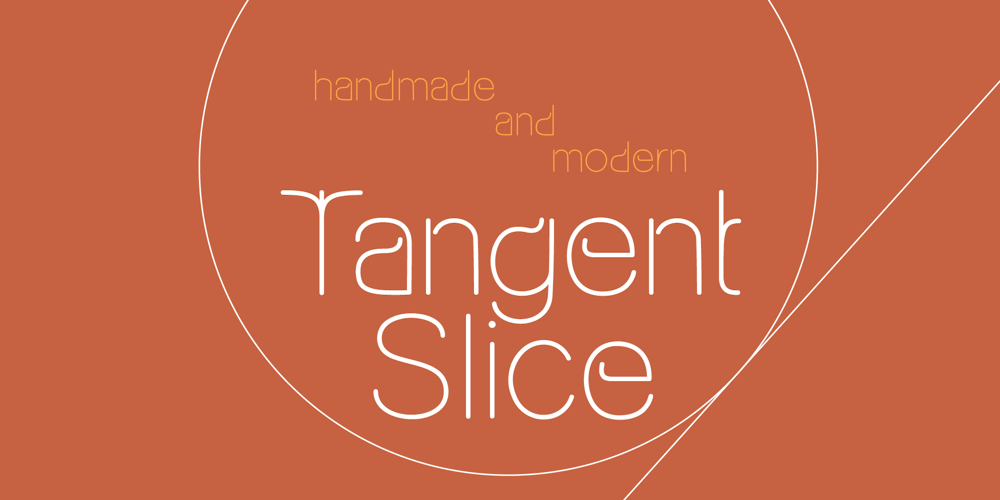
Tangent Slice
Tangent Slice font
Tangent Slice Font Family was designed by Jess J and published by Type Avenue. Tangent Slice contains 1 styles and family package options. Looking for a structured font that screams elegance? You’ve found it. This handmade font is modern yet is a tinge of retro to give you a unique combination that is sure to stand out.